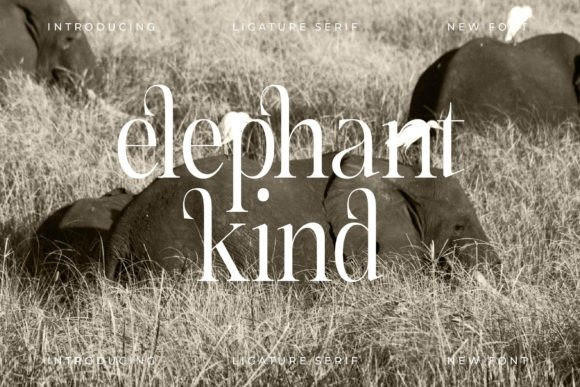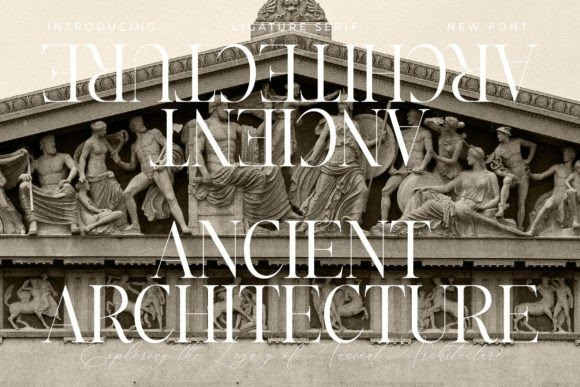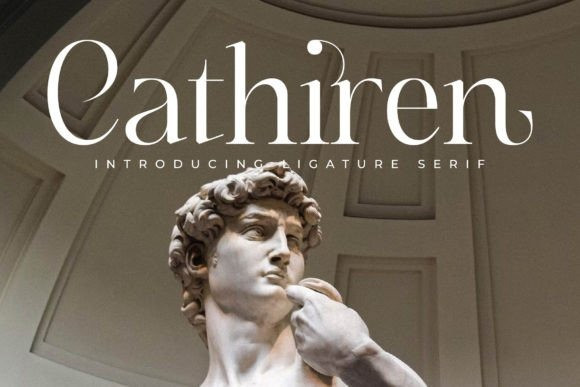
Cathiren Font
Cathiren Font is a modern and classic serif typeface that has its own unique style and modern look. This typeface is perfect for an elegant & luxurious logo, book or movie title design, fashion brand, magazine, clothes, lettering, quotes, and so much more.